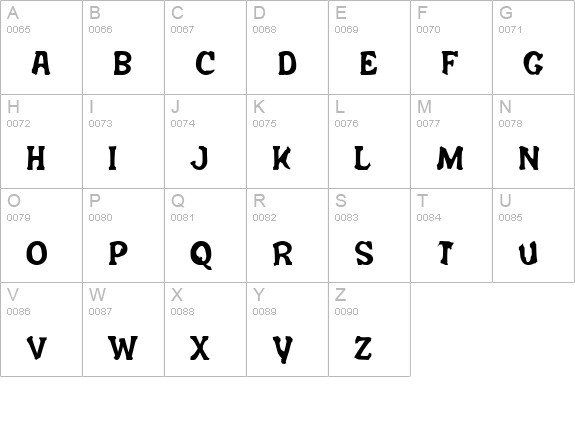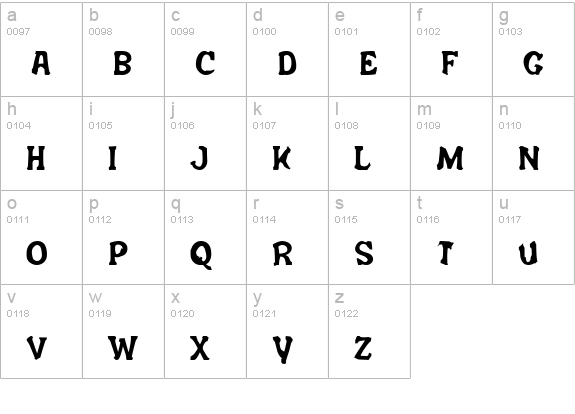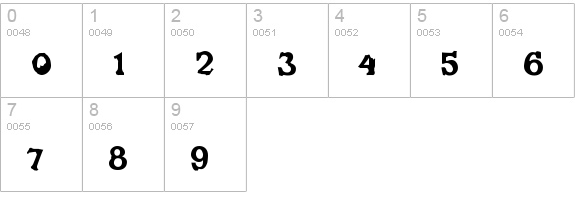
Salem Ergotism Font Details
Salem Ergotism font is a captivating and unique typeface that effortlessly combines elegance with a touch of mystique. This font is sure to leave a lasting impression on any project, whether it be for branding, advertising, or graphic design. The intricate details and carefully crafted curves of Salem Ergotism font make it a standout choice for those seeking to add a touch of sophistication and allure to their designs. Its bold yet graceful letterforms exude a sense of confidence and charm, making it perfect for creating eye-catching headlines, logos, or invitations. One of the most appealing aspects of Salem Ergotism font is that it is freely available to download at FontsMarket.com. This means that designers and creatives of all levels can easily access this stunning font without any restrictions or limitations. Whether you're a professional designer or just starting out, Salem Ergotism font is a valuable addition to your font library. The versatility of Salem Ergotism font is another reason why it stands out from the crowd. It can seamlessly adapt to various design styles, whether it be modern or vintage, making it ideal for a wide range of projects. This font truly knows how to make a statement, effortlessly adding a touch of sophistication and class to any design. With its freely available download, there is no reason not to explore the endless possibilities that Salem Ergotism font has to offer. So go ahead, unleash your creativity, and let this mesmerizing font elevate your designs to new heights.